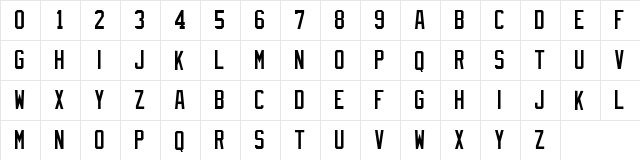
NHL NY Rangers Regular
Design Context for NHL NY Rangers Typeface
NHL NY Rangers is a composed and adaptable typeface that performs quietly and consistently across a wide range of design contexts.